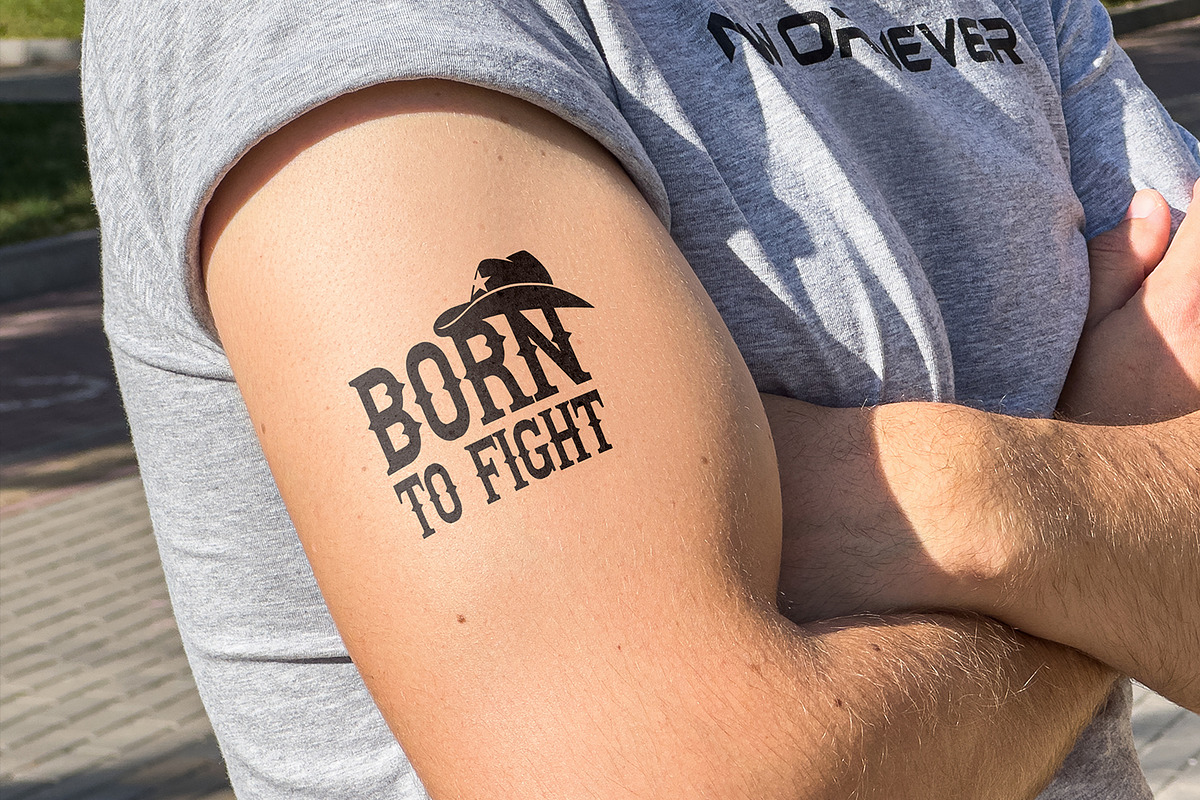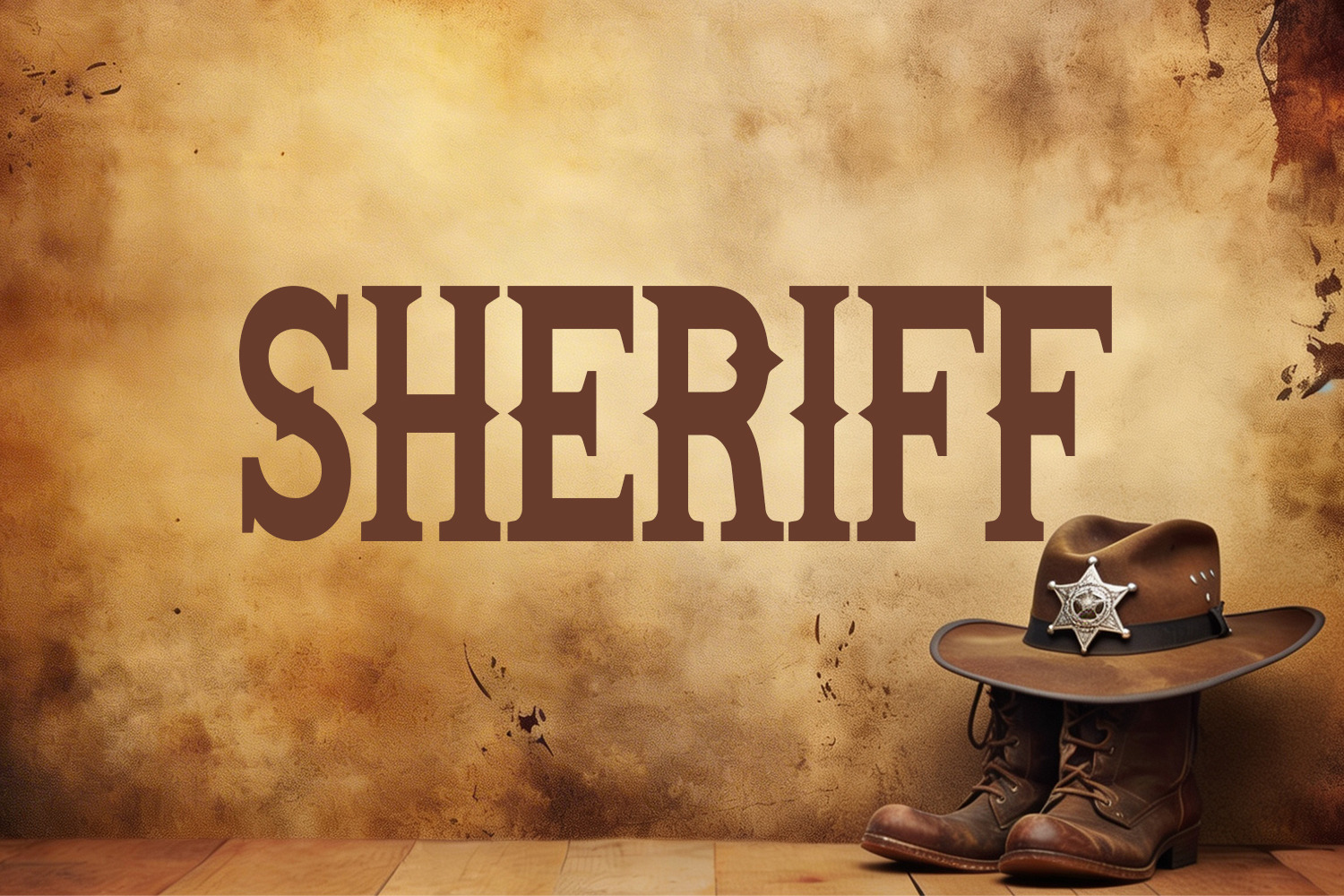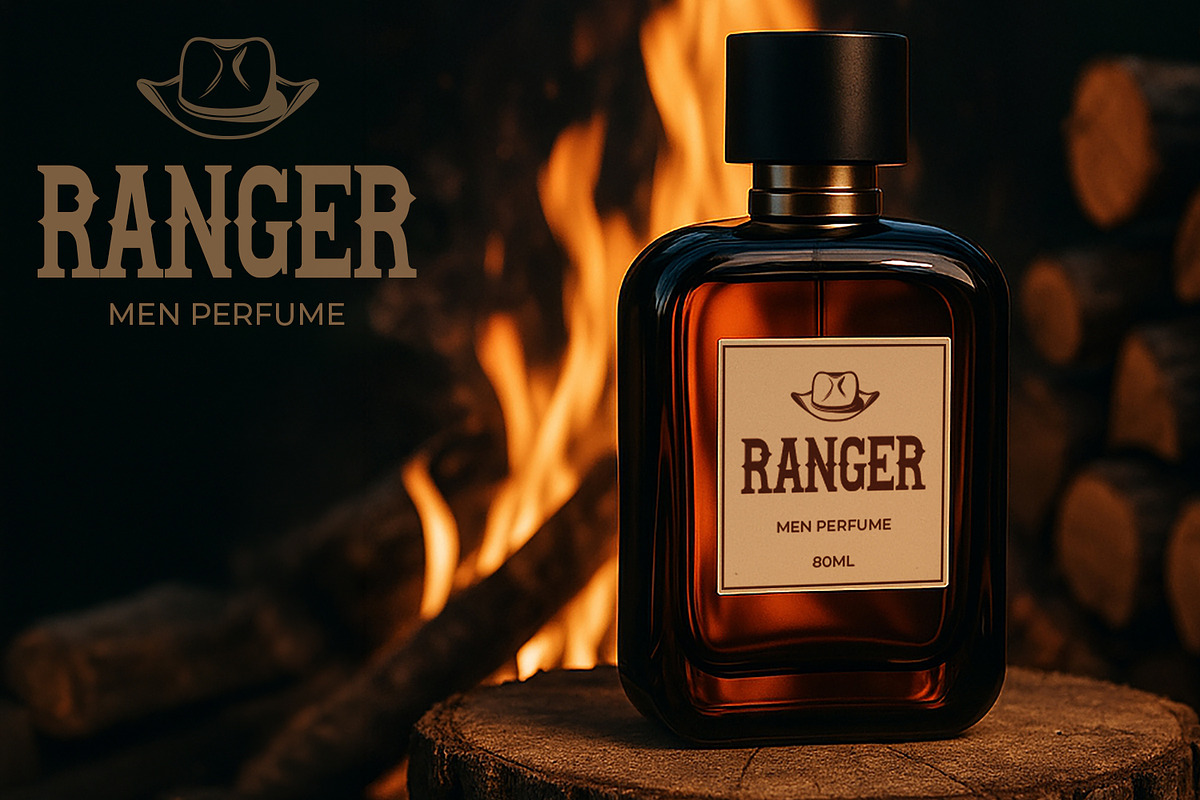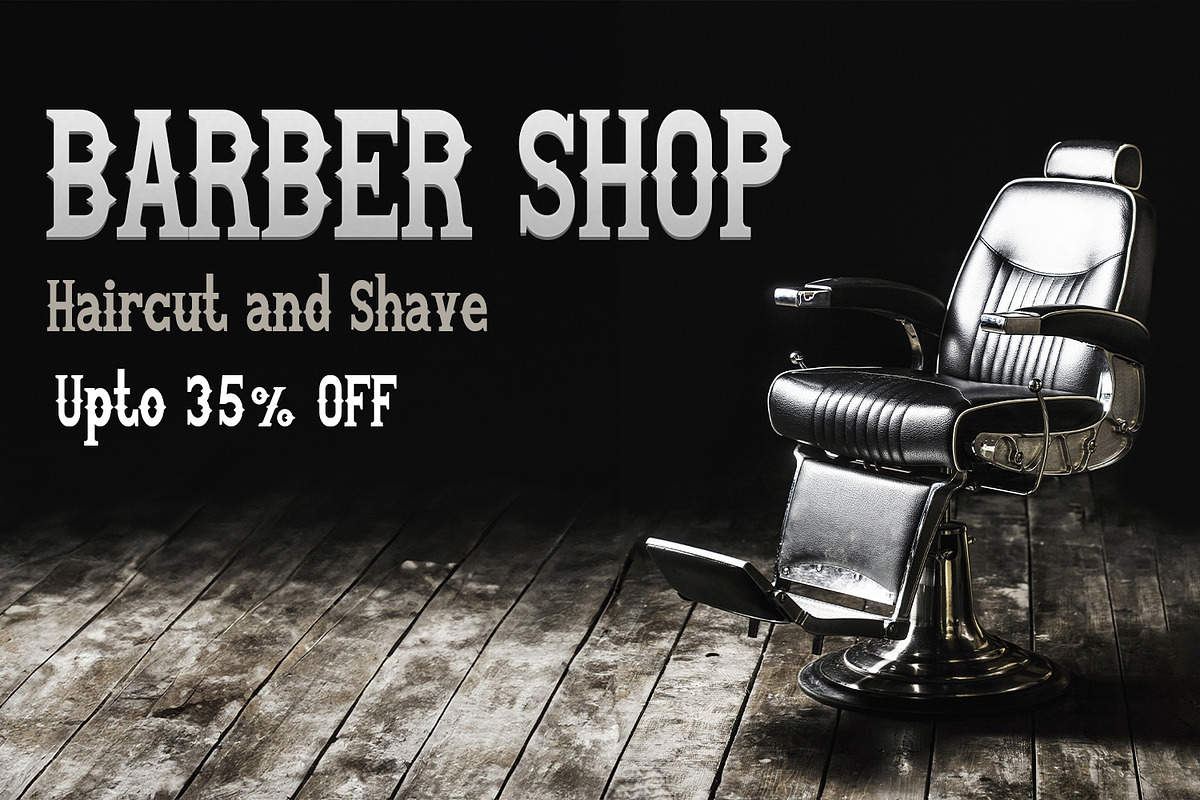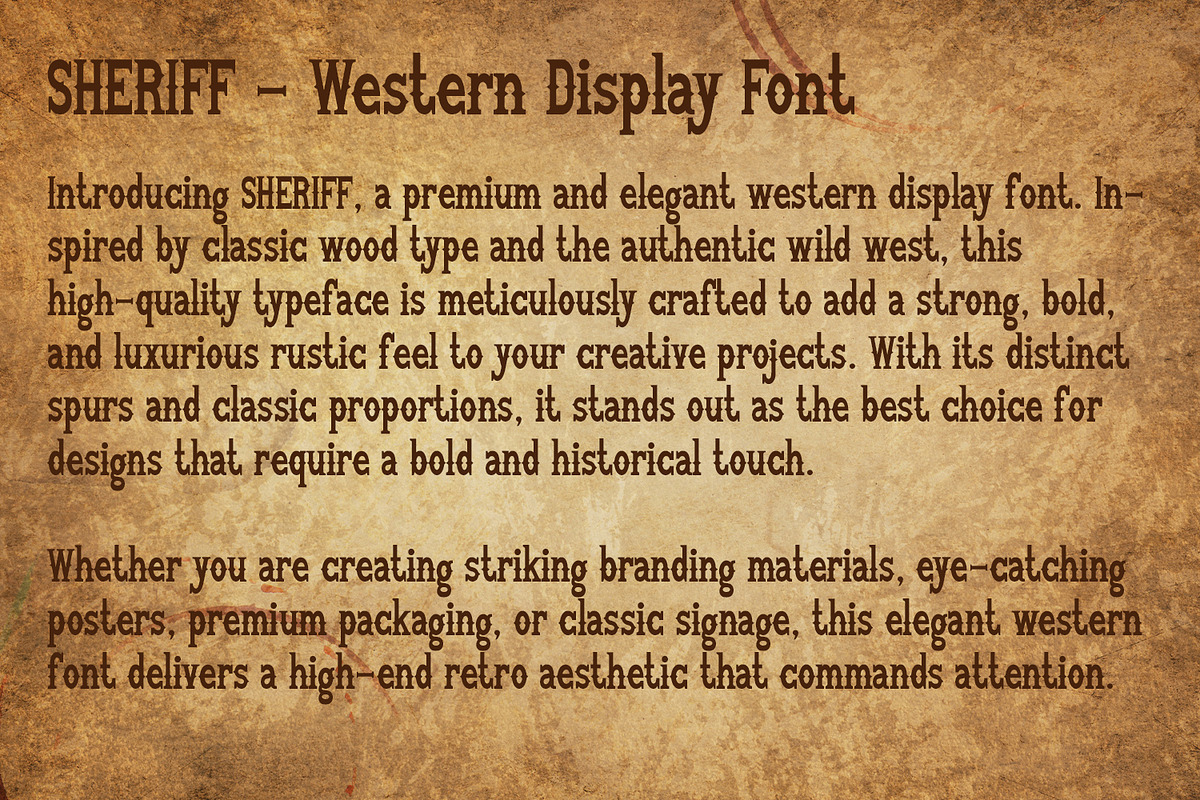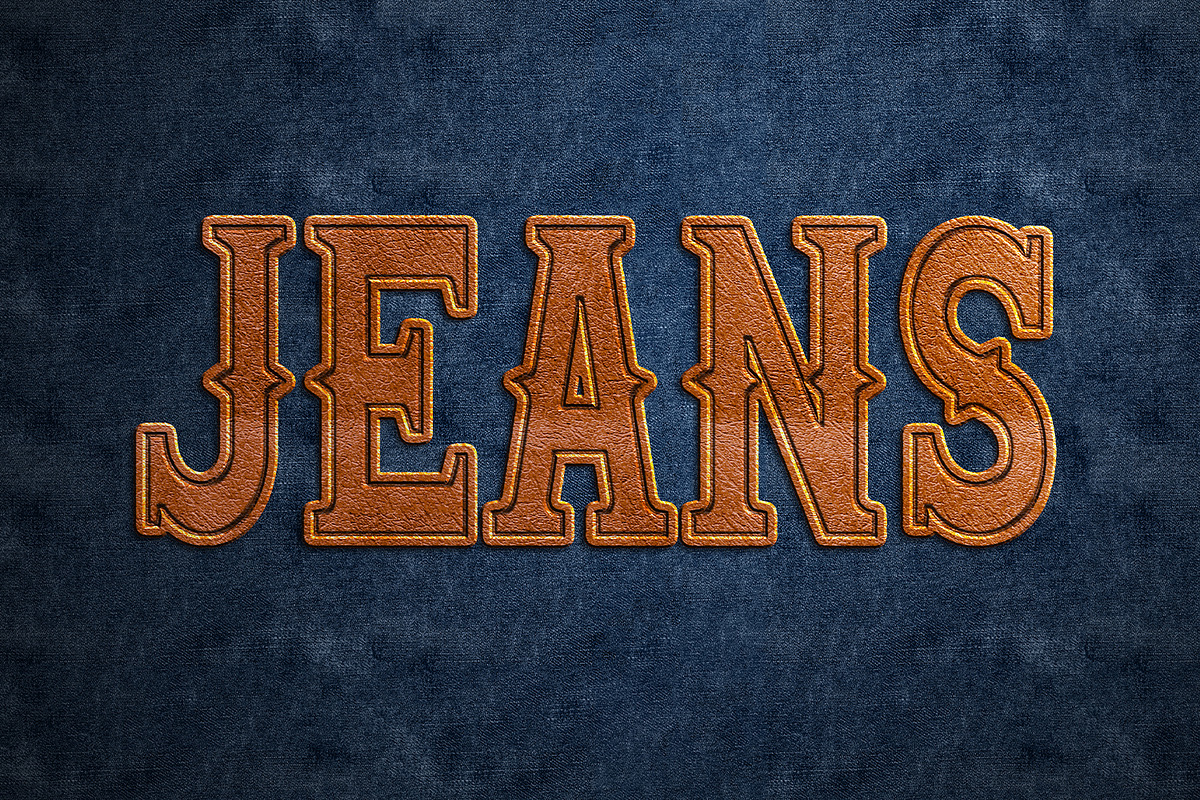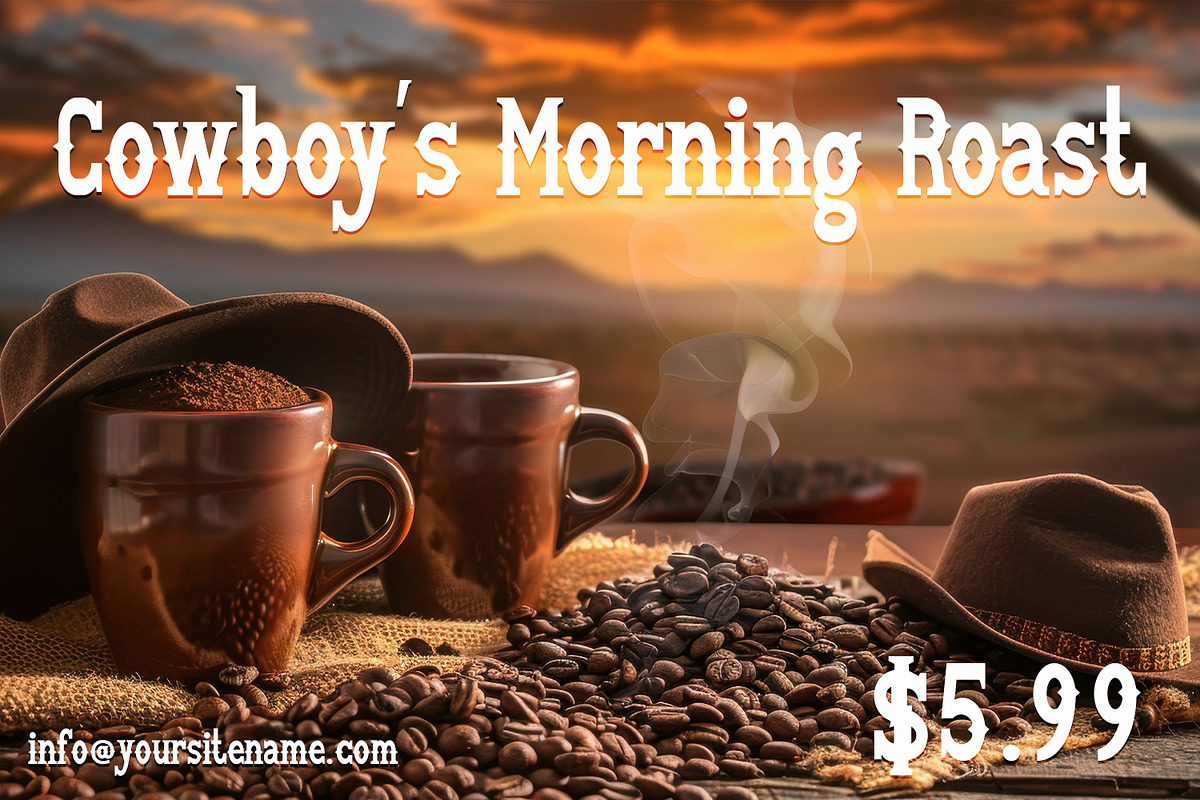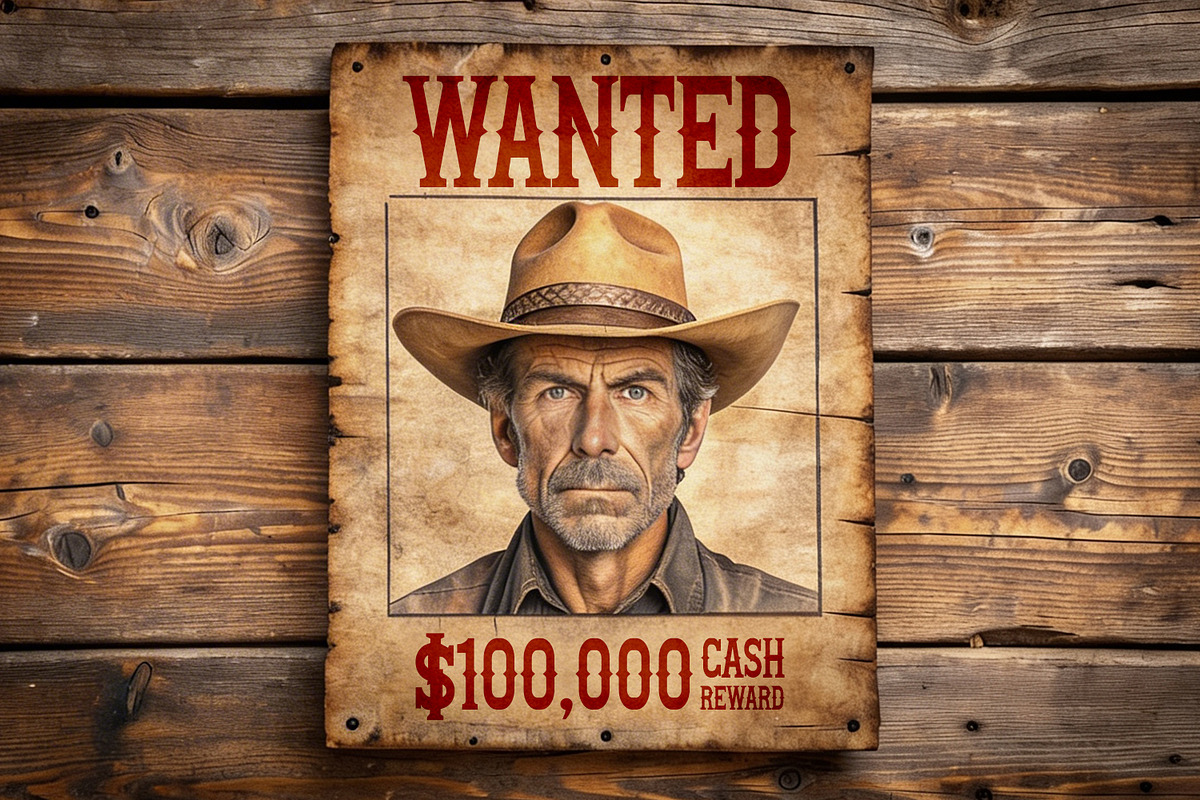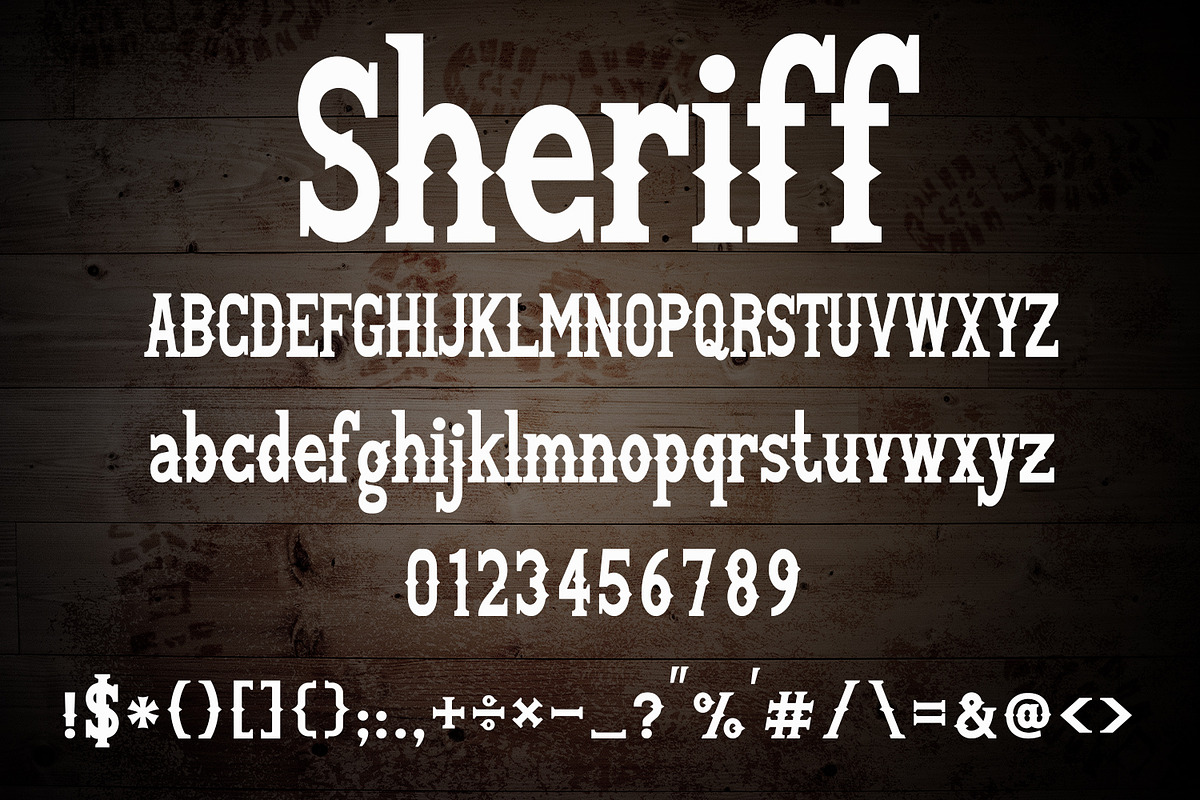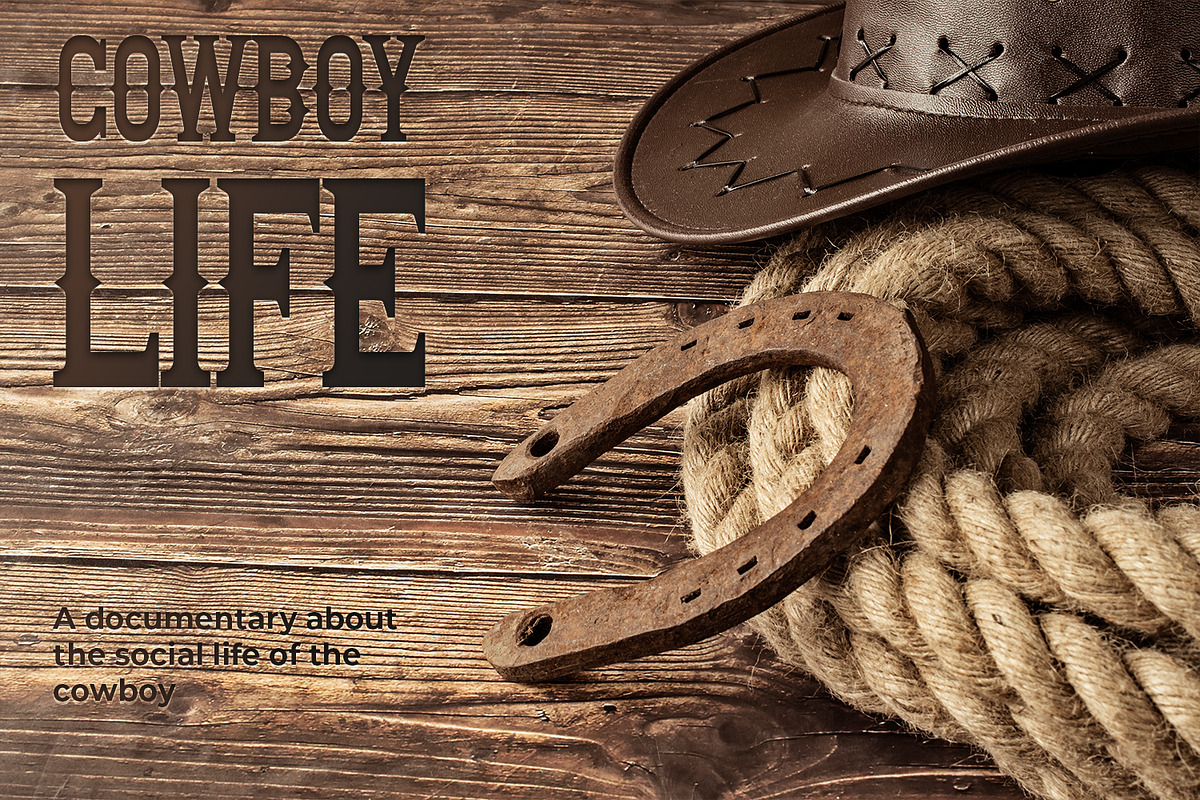
Sheriff - Best Classic Cowboy Font
Introducing SHERIFF, the best premium vintage western display font for all your creative projects. With its luxurious rustic charm and classic wood-type spurs, this elegant slab serif is meticulously crafted to take your designs to the next level. Whether you are designing stylish apparel and fashion branding, creating authentic denim jeans labels, crafting luxury perfume packaging, or making eye-catching country event posters, Sheriff delivers a bold and high-end aesthetic. It is an essential and versatile typeface perfect for crafters, graphic designers, and makers looking for that flawless blend of a rugged cowboy vibe with elegant precision.